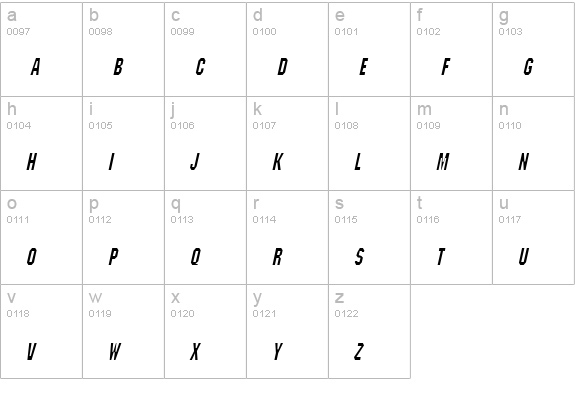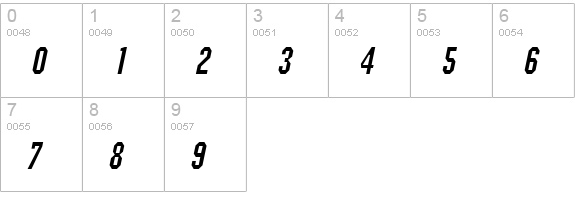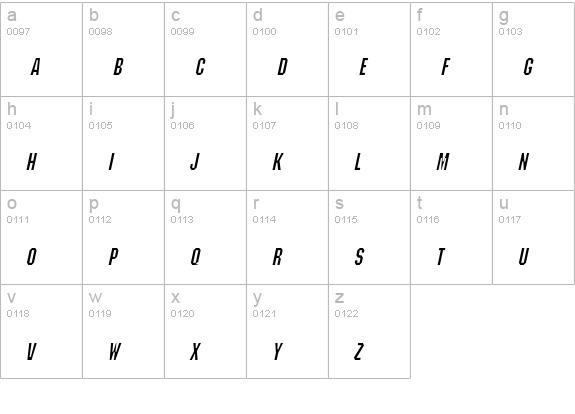
Block Condensed Italic Font Details
Block Condensed Italic is a distinctive, condensed-width, italic variant in the Block typeface family \xE2\x80\x94 well suited to design and typography projects.
The Block Condensed Italic font is a sleek and modern typeface that exudes a sense of sophistication and elegance. Its condensed design gives it a unique edge, making it perfect for adding a contemporary touch to any project. The italicized style adds a touch of flair and dynamism, making it ideal for conveying a sense of creativity and innovation. What sets the Block Condensed Italic font apart is not just its stylish design, but also the fact that it is completely free to download. That's right - you can get your hands on this stunning font at no cost at FontsMarket.com. Whether you're working on a design project, creating branding materials, or simply looking to elevate your typography game, the Block Condensed Italic font is a versatile and eye-catching option that won't break the bank. Download it today and add a touch of sophistication to your next project!